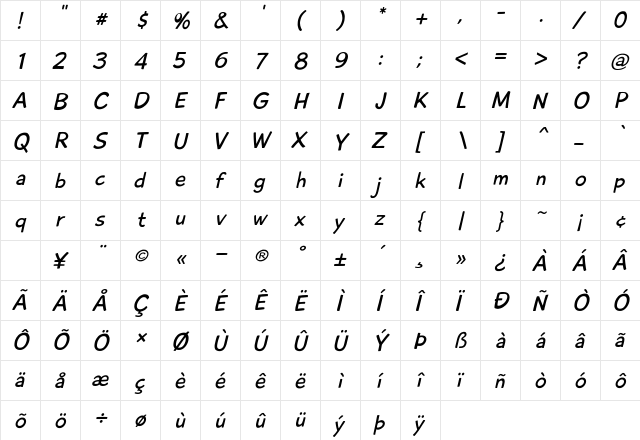
PlaytimeWithHotToddiesOblique Regular
Design Context for PlaytimeWithHotToddiesOblique Typeface
PlaytimeWithHotToddiesOblique offers clean, dependable letterforms without strong stylistic allegiance, making it a practical choice for designers who need flexibility. The slanted form adds forward momentum and visual energy.